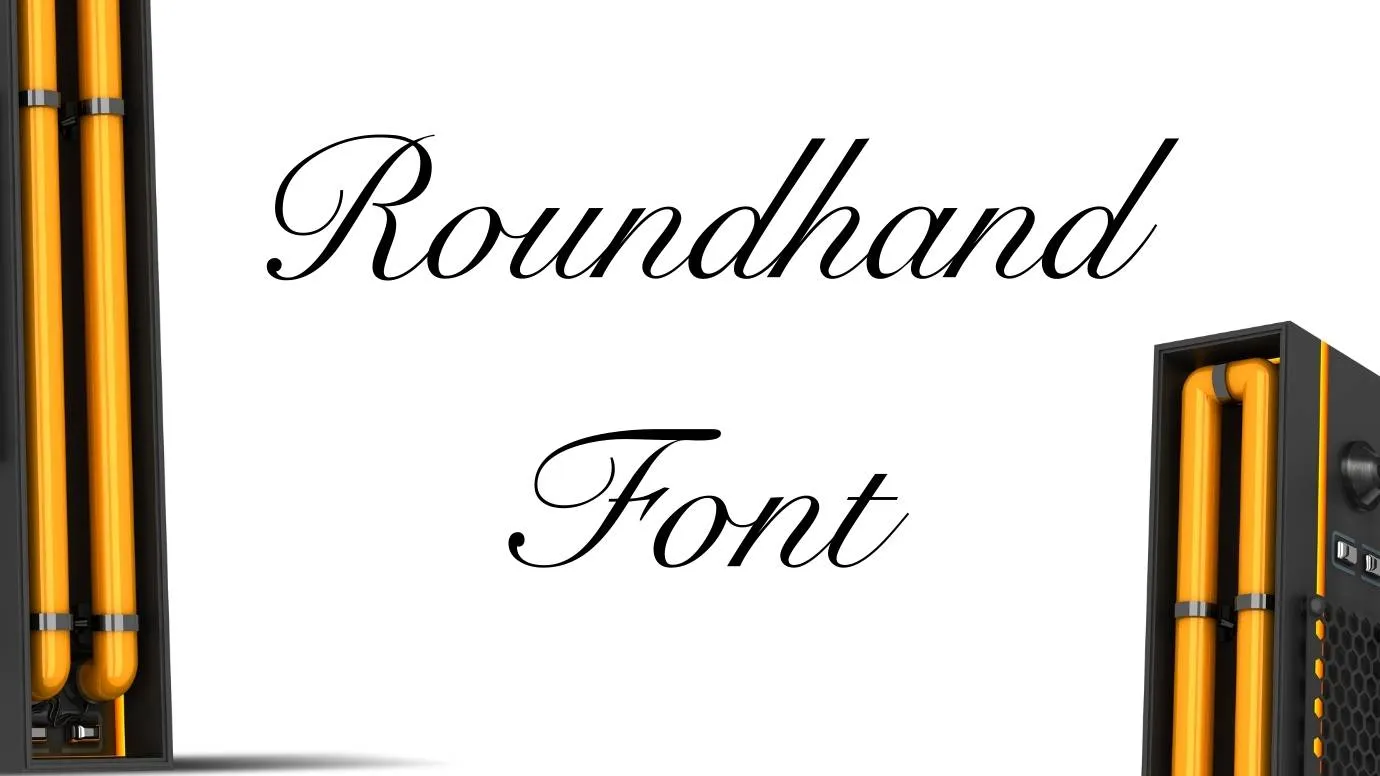
Roundhand Font Family is a script calligraphy typeface that was developed for the first time by two famous typographic designers known as William Benson and John Ayres. It has two styles that are regular and bold.
It contains more than 237 glyphs along with 1024 units per em. Roundhand Font has more than 230 defined characters including punctuation marks, lowercase letters, and currency symbols. Adelicia Font is the most alternative font of this typeface.
Roundhand Font